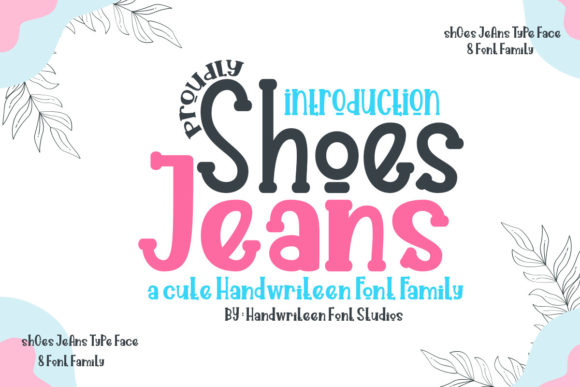
Looking for a font that brims with warmth and charm? Look no further than Shoes Jeans! This display font is brimming with character, making it perfect for adding a touch of whimsy to any project. Whether you're creating invitations for a baby shower, designing a children's book, or simply adding a personal touch to your social media posts, Shoes Jeans is sure to make your words pop. Its playful curves and cheerful demeanor will add an instant smile to any design. So why wait? Download Shoes Jeans today and let your creativity soar!